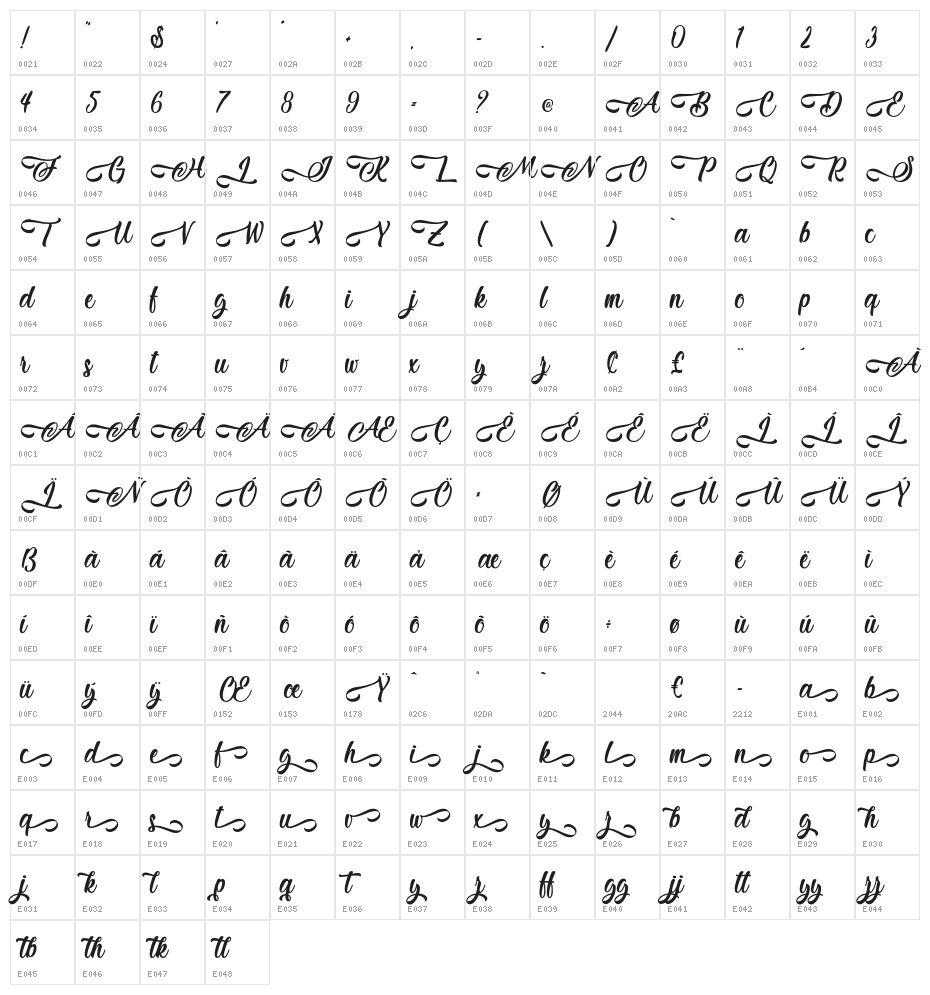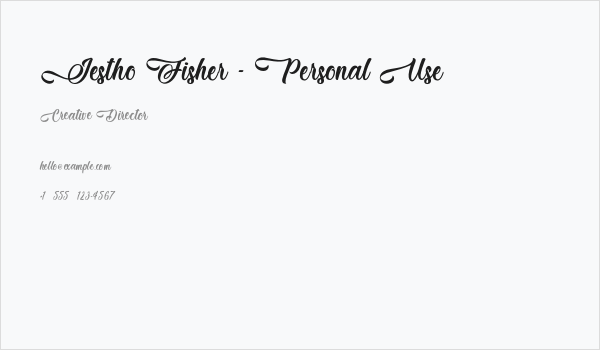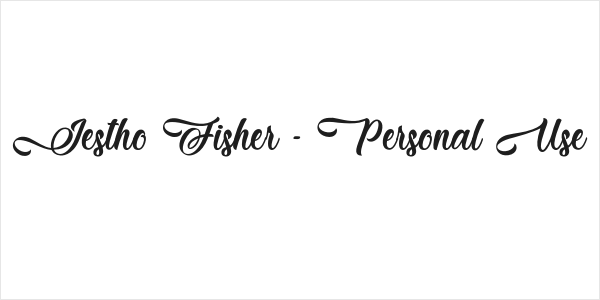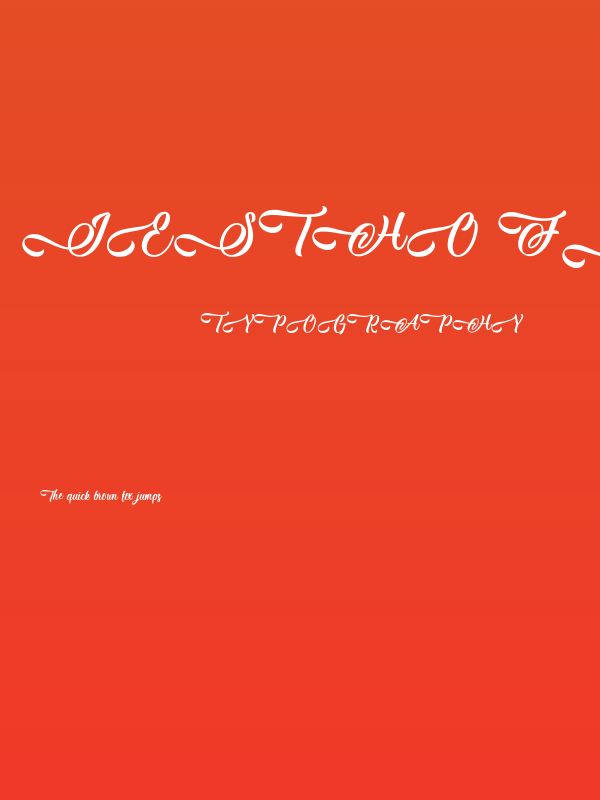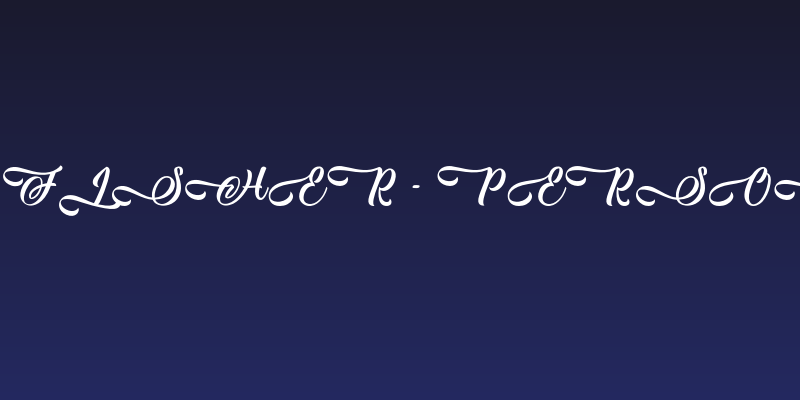
Jestho Fisher - Personal Use Font
Jestho Fisher - Personal Use Description
This font features a flowing, cursive style with elegant loops and swashes, giving it a sophisticated and artistic appearance. The uppercase letters are particularly ornate, with extended flourishes that add a decorative touch. The lowercase letters maintain a smooth, connected script that enhances readability while retaining a stylish flair. The numerals are consistent with the overall script style, offering a cohesive look across all characters. Special characters are thoughtfully designed to match the font's aesthetic, making it versatile for various uses.
| Use Case | Logos, Invitations, Decorative Text |
| Proposed Projects | Ideal for wedding invitations, greeting cards, branding, and logo design where a touch of elegance and sophistication is desired. |